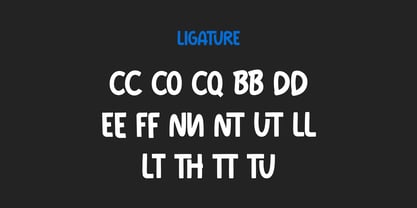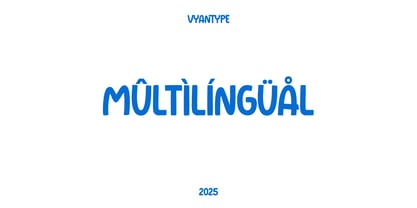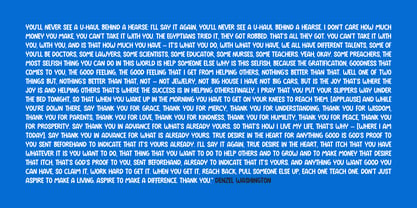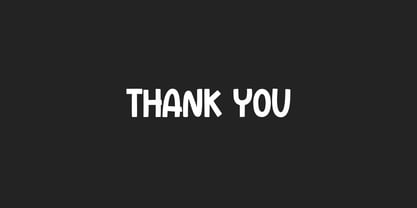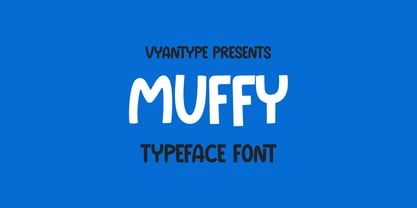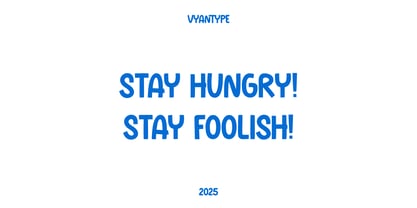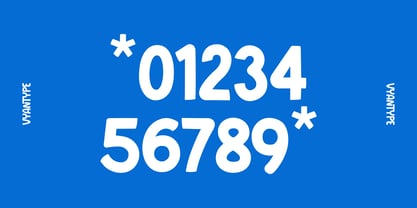
Muffy
by Vyantype Studio
The Muffy Font Family was designed by Hero Novyanto and published by Vyantype Studio. Muffy contains 1 styles. More about this family
This playful handwritten font draws inspiration from children's writing, offering a delightful and cheerful aesthetic. With attractive multilingual variants, it is perfect for conveying a fun design style. Designers can seamlessly integrate this font into various projects, including illustrations, posters, and logos. Its bold yet whimsical character captures the essence of childlike expression, making it an ideal choice for creative endeavors that aim to evoke joy and playfulness.
Designers: Hero Novyanto
Current Foundry: Vyantype Studio
Vyntype Studio was founded by Hero Novyanto. They are the creative force behind a diverse portfolio of typefaces, from crisp, modern sans-serifs to expressive, hand-drawn scripts and playful fonts. Our design process is rooted in extensive research, precise mathematical curve drawing, and a deep understanding of how typography influences mood and legibility across various media.